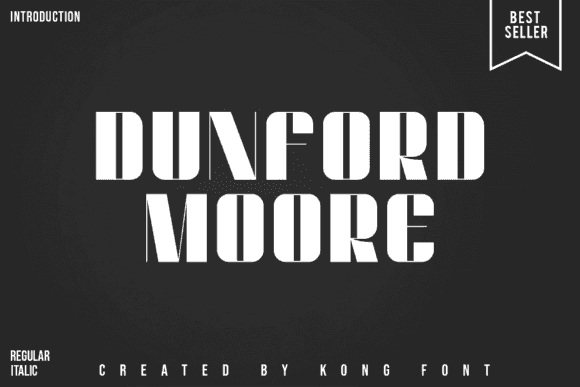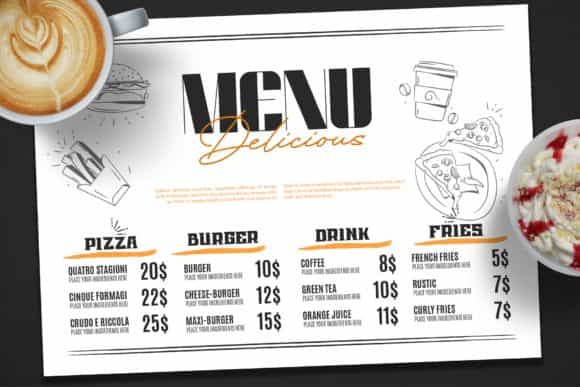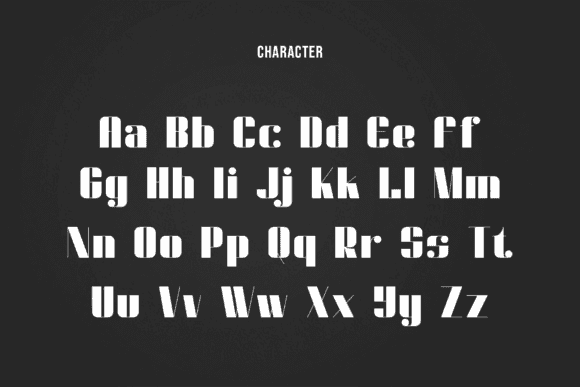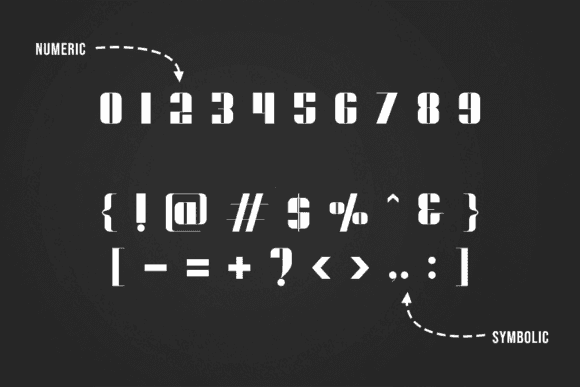
The Dunford Moore Font is a type family where every single letter has been designed to give you the most hardy and extensive font you can get in the market. Dunford Moore Font is suitable for logo usage while Dunford Moore has a vintage appeal that gives your designs a touch of the hand made.